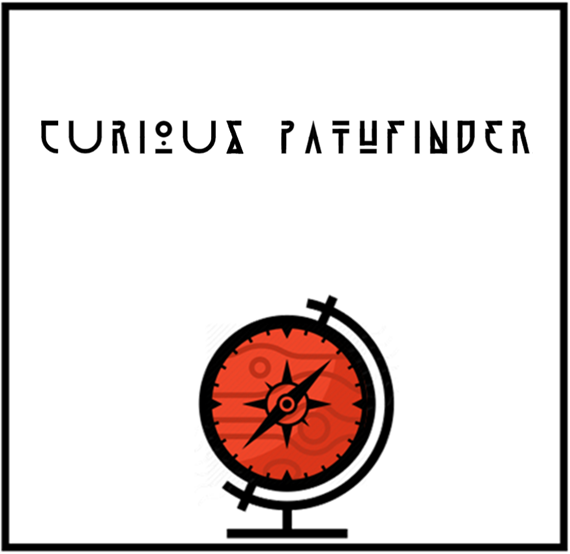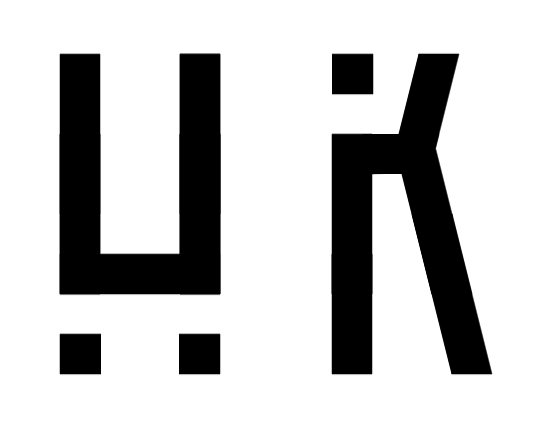
• answering the question of what the martian roaring twenties may have looked like
In awe of your ability to create endlessly fascinating variations on these tiny geometric letterforms.
I'm loving it! My only "but" are H and K, I suggest you something about them.
elmoyenique, thank you for the kind words and the ideas. at this current point in time, i'm unsure how to best incorporate the ideas and keep the matching styles throughout
that being said, the input is always valued and the samples are lovely, they will be kept on the back burner for the time being. i hope you don't mind~